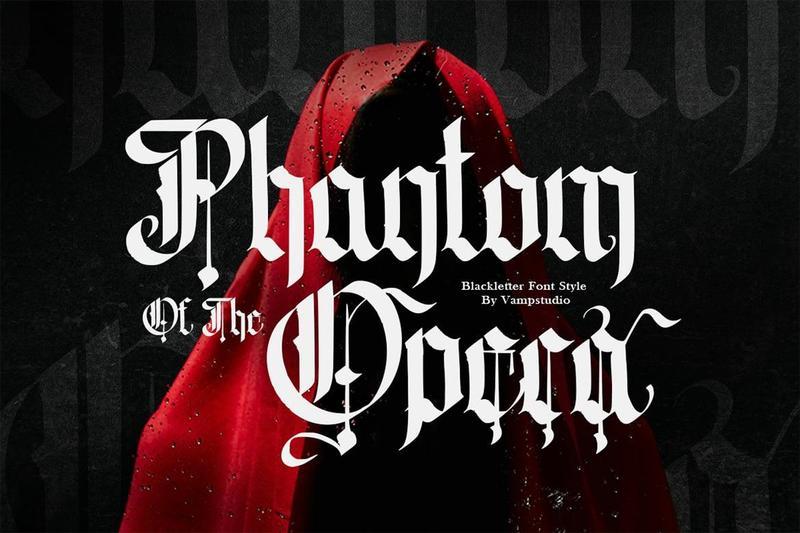
Phantom Of Opera – Gothic Blackletter Display Font G9432A4
Phantom Of Opera Gothic Blackletter Display Font G9432A4
**Phantom Of Opera** is a dramatic gothic blackletter display font inspired by classical opera, medieval typography, and dark artistic atmospheres. Featuring sharp strokes, strong contrast, and elegant ornamental details, this font delivers a powerful and mysterious presence in any design.
It is perfectly suited for posters, album covers, book titles, theatrical branding, horror artwork, historical themes, luxury gothic branding, tattoos, and statement headlines. Phantom Of Opera brings a timeless, haunting character that enhances both modern and classical visual compositions.
The font includes uppercase and lowercase letters, numerals, punctuation, symbols, and multilingual supportmaking it versatile for both print and digital use.
* Gothic blackletter display style
* Strong contrast with elegant details
* Uppercase & lowercase letters
* Numbers, punctuation, and symbols
* Multilingual accent support